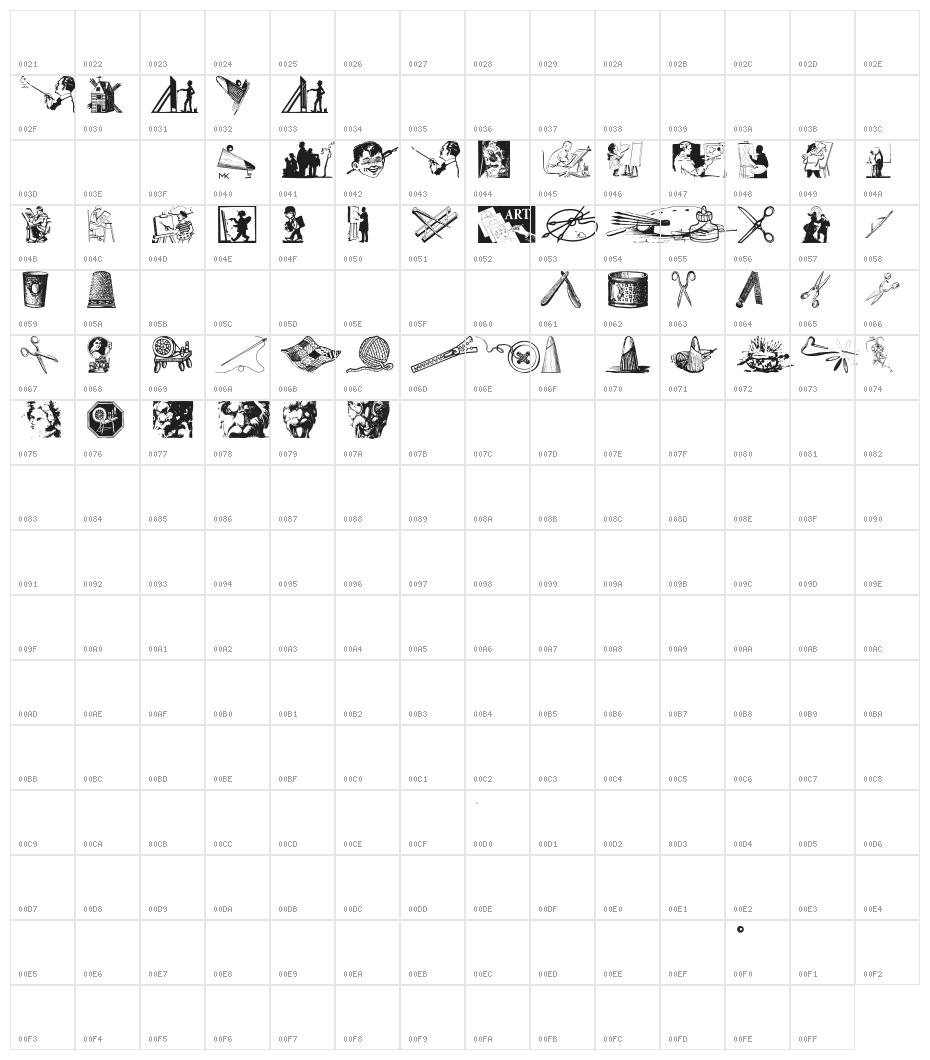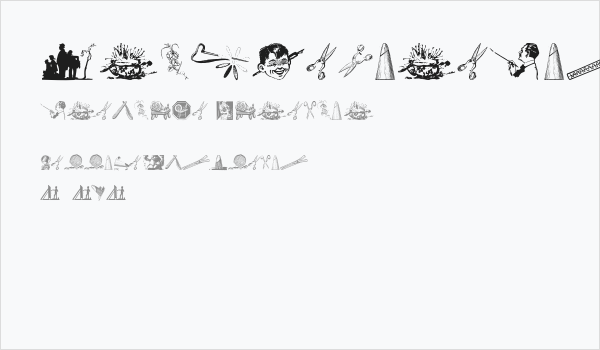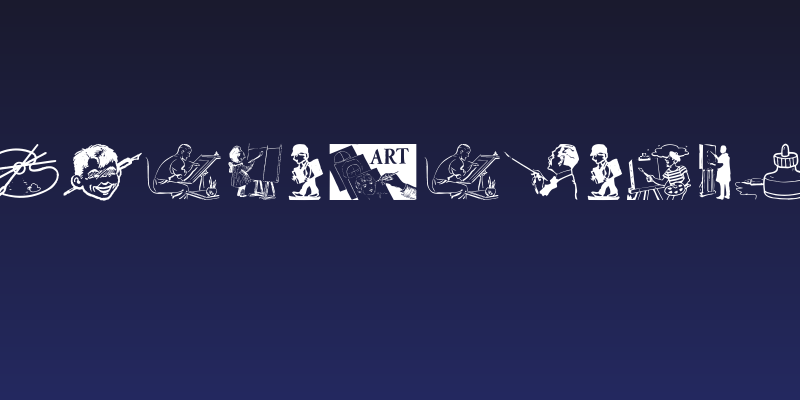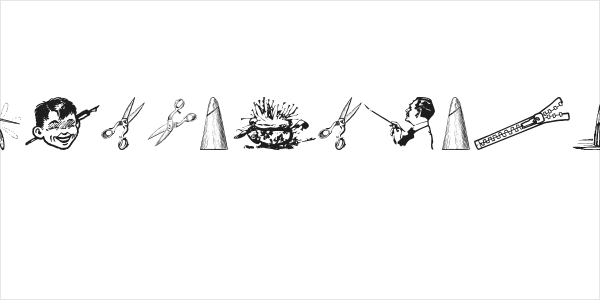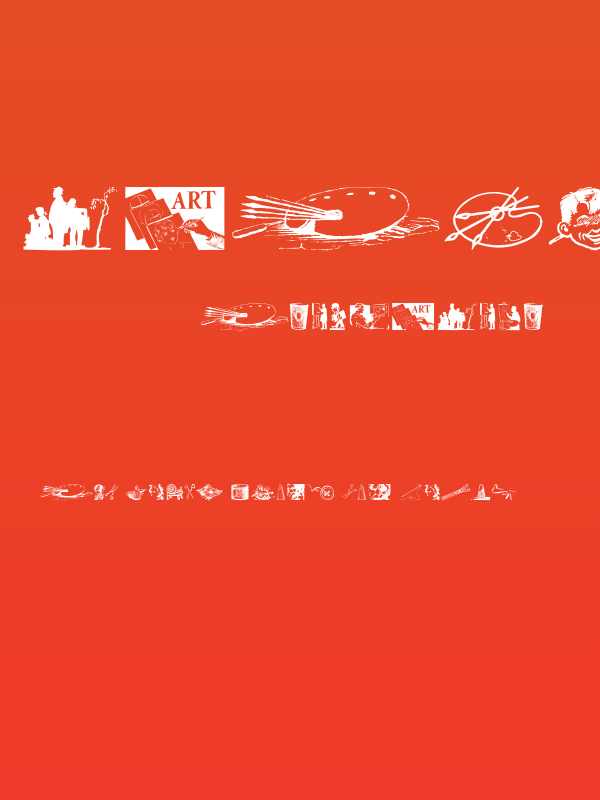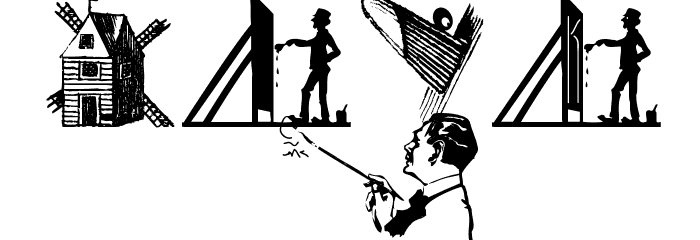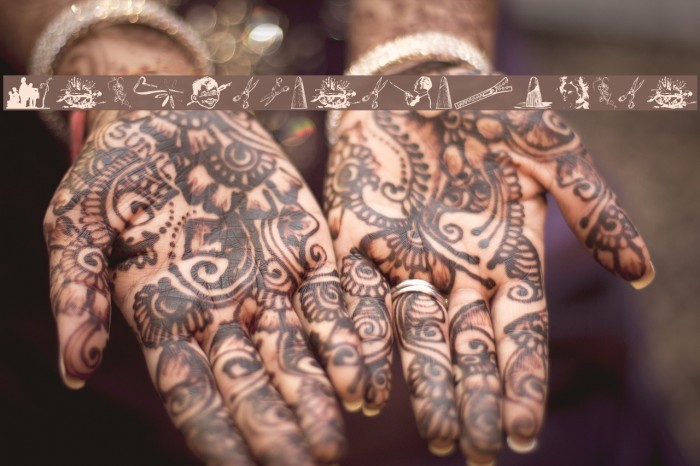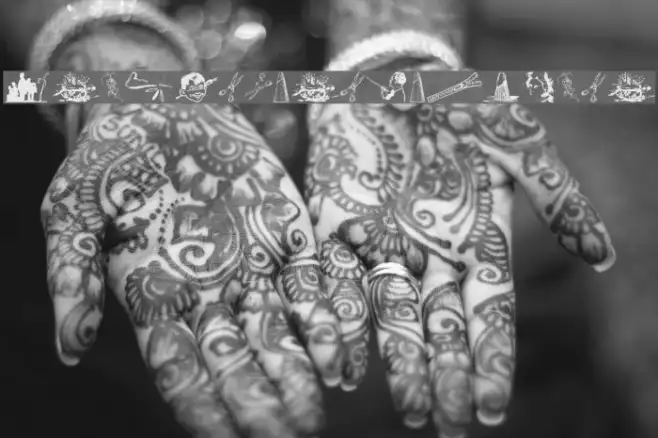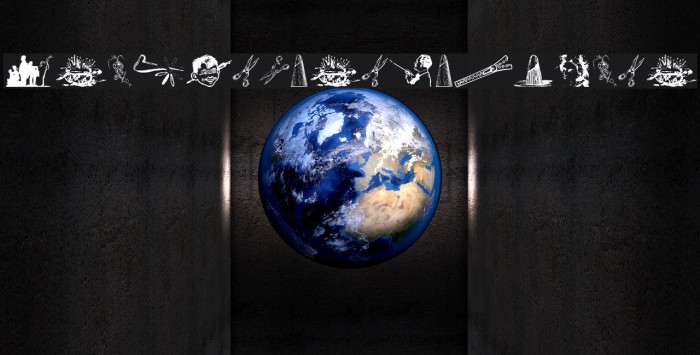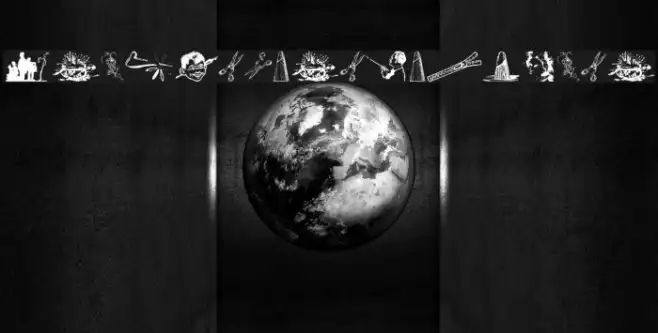
ArtsBeforeComputer Font
ArtsBeforeComputer Description
A decorative display font composed entirely of detailed black-and-white illustrations depicting various art, craft, and creative activities, including painting, drawing, sewing, and sculpture. Each character is represented by a unique vintage-style vignette, giving the font a hand-drawn, nostalgic feel.
| Overall Style | Vintage, Decorative, Artistic |
| Use Case | Headlines, Logos, Posters, Themed Graphics |
| Proposed Projects | Posters, event invitations, art fair branding, creative workshop materials, book covers, themed signage. |